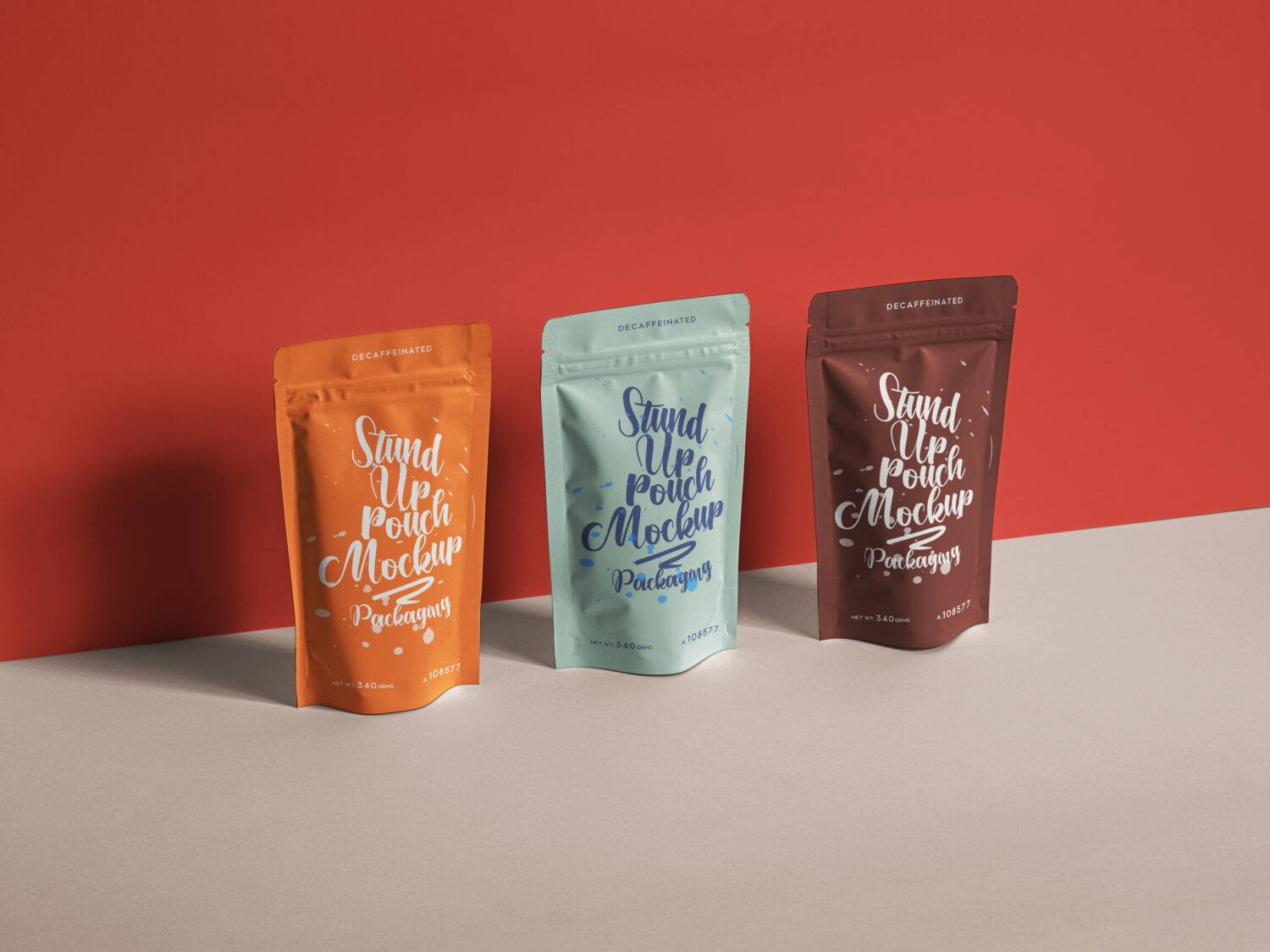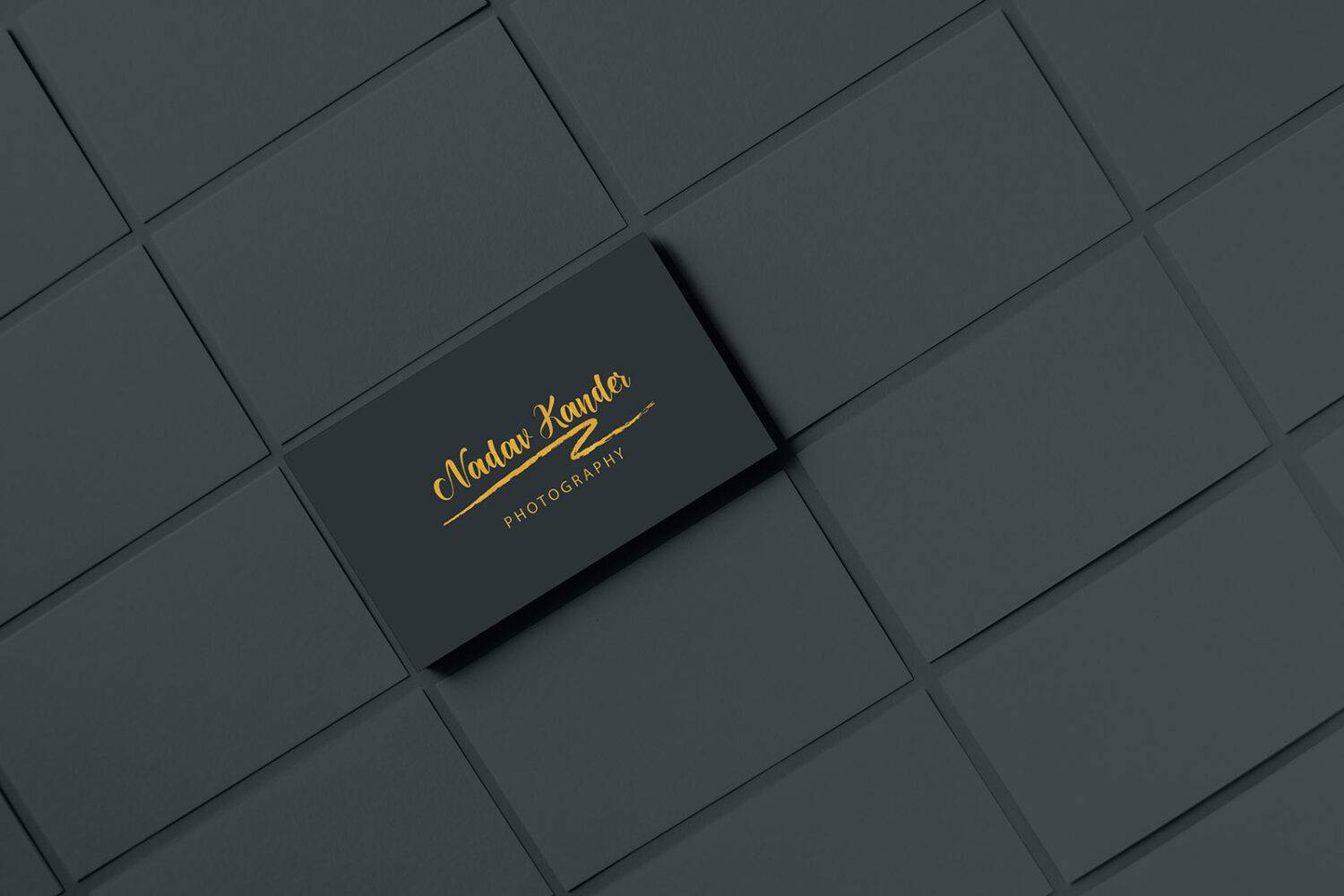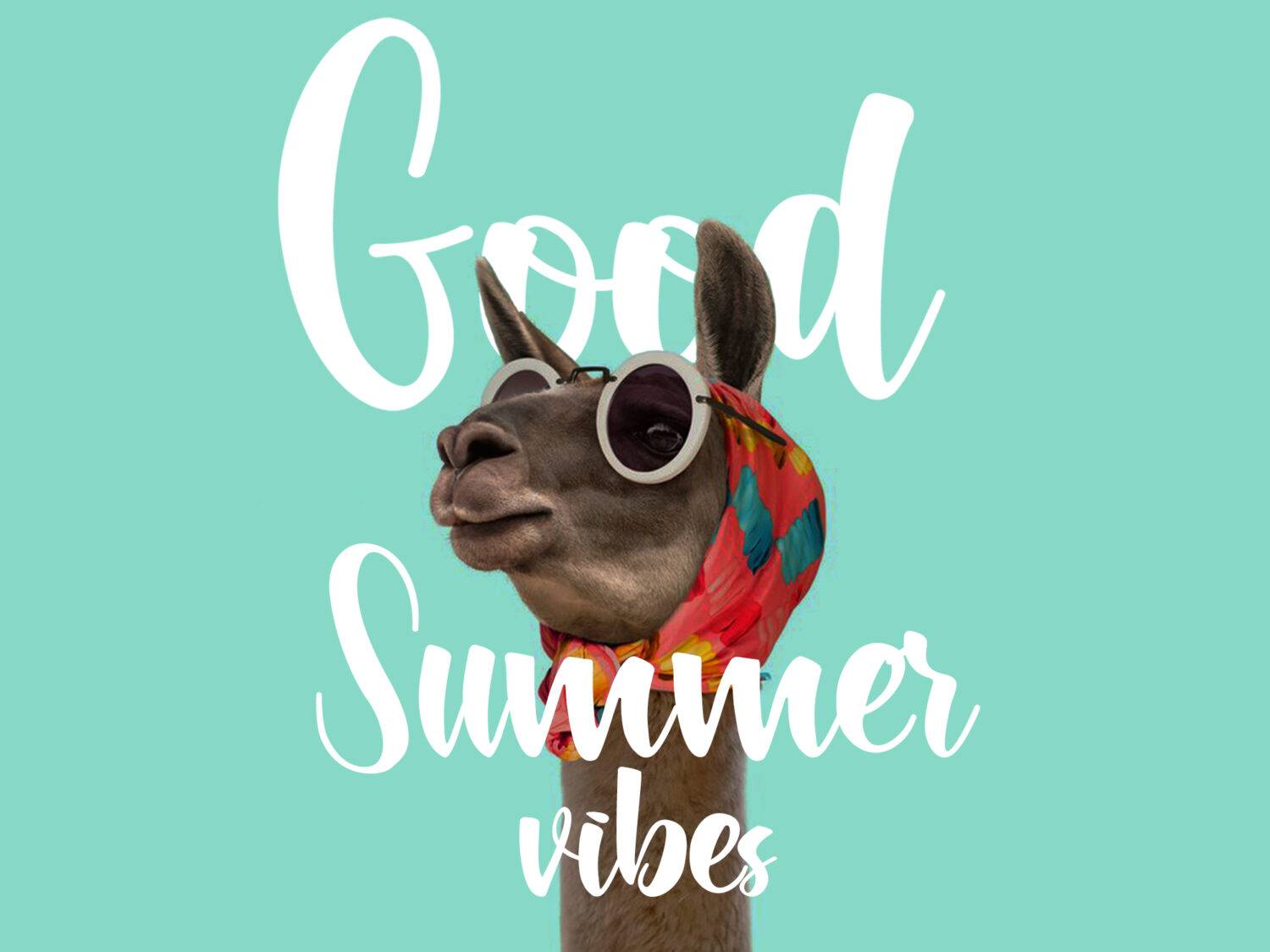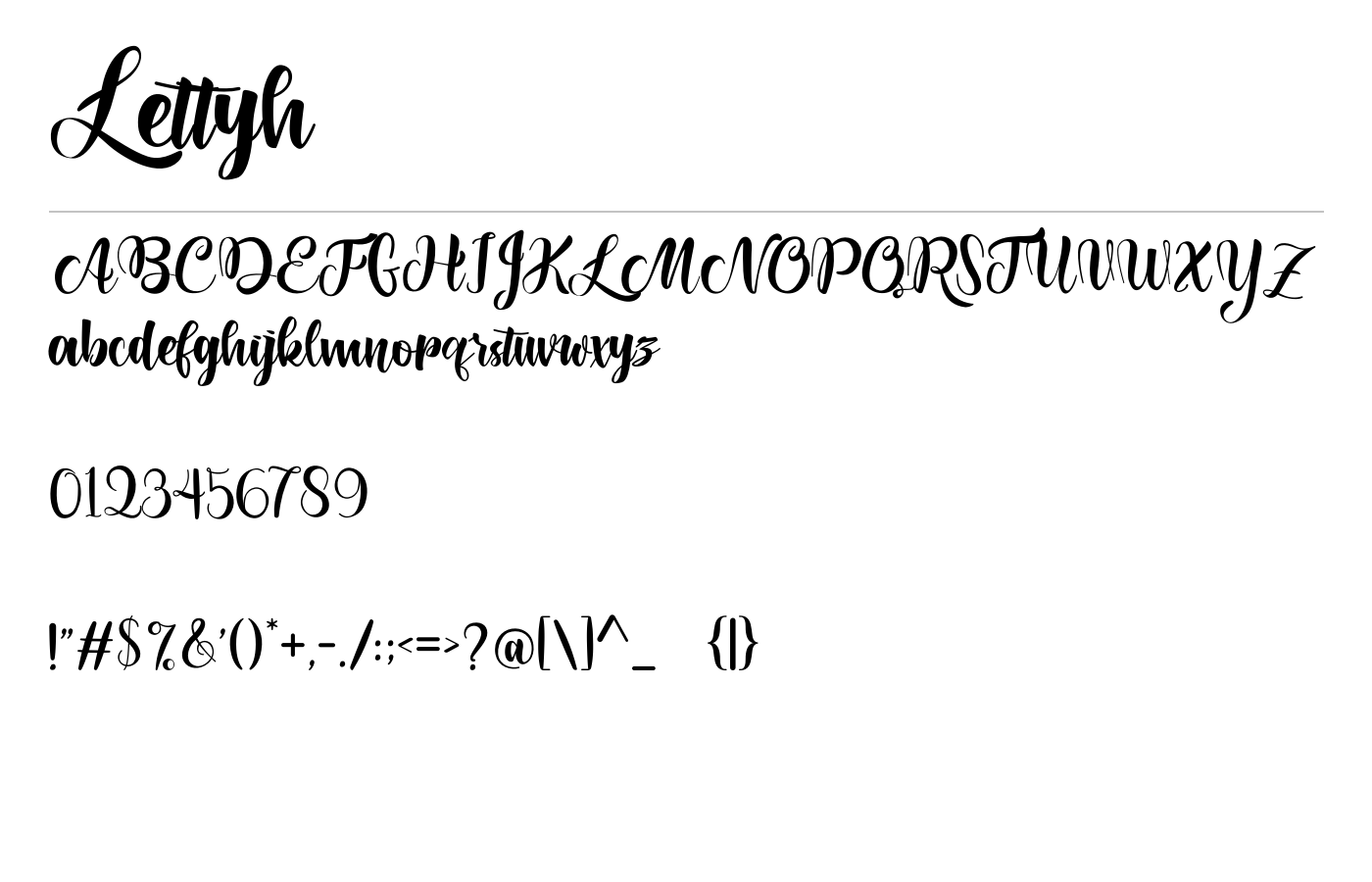
Lettyh is an elegant script font featuring fluid, connected letterforms with a lively and friendly personality. Its moderate weight and flowing strokes give it a handcrafted, artistic feel perfect for invitations, branding, and creative projects that seek a personal and stylish touch. This font works beautifully in logos, headlines, and packaging where a warm, expressive, and sophisticated vibe is desired.
Lettyh Font
About Lettyh Font